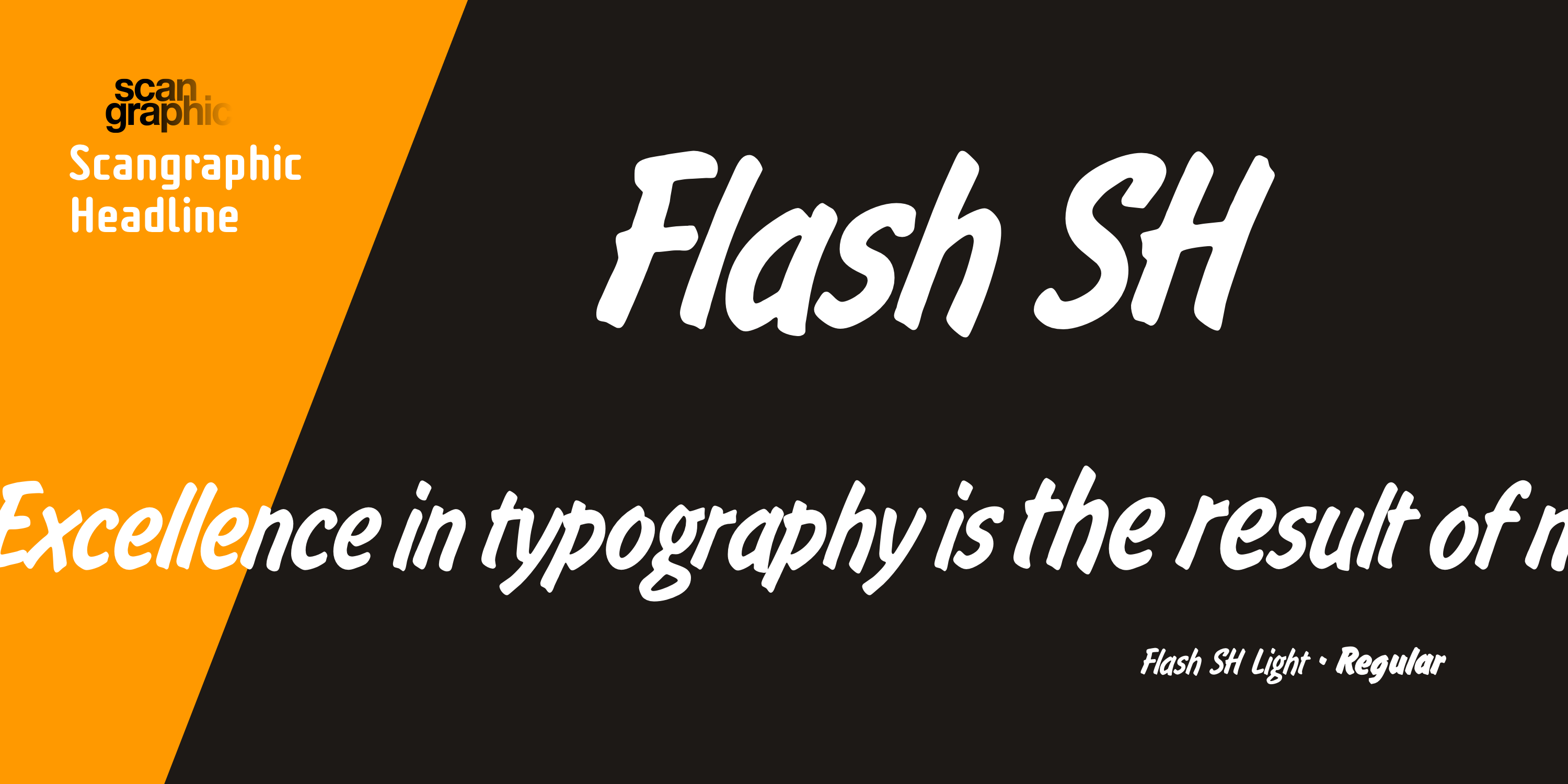
Flash SH Font is perfect for superhero comic book titles, high-energy sports graphics, dynamic action movie posters, electric vehicle branding, lightning-fast delivery services, extreme sports promotions, energy drink packaging, and electrifying entertainment campaigns.
What makes Flash SH Font exciting is its explosive energy that instantly captures lightning-fast speed and electrifying power through dynamically charged typography that crackles with unstoppable momentum and superhuman velocity. The energetically crafted letterforms showcase sharp angular construction with electric characteristics that evoke memories of lightning strikes, superhero adventures, and the thrilling rush of pure adrenaline-fueled action. This extraordinary typeface embodies speed, power, and electrifying excitement, making it the perfect choice for brands and projects that need to communicate instant impact, superhuman performance, and the kind of high-voltage energy that stops traffic and demands immediate attention.
The Flash SH Font family includes multiple weights from Regular to Ultra Bold, with condensed variants for maximum electric impact. The comprehensive character set features uppercase and lowercase letters, lightning-fast numerals, electric symbols, and high-energy punctuation marks that enhance the electrifying aesthetic across all action-oriented and dynamic design applications.
Action brands and entertainment designers seeking Flash SH Font Free Download will discover unlimited potential for creating electrifying, attention-grabbing communications. This remarkable typeface transforms standard promotional text into compelling visual lightning bolts that immediately communicate speed, excitement, and superhuman capability. Whether you're designing superhero entertainment materials, creating extreme sports branding, developing high-performance automotive graphics, or crafting energy-focused marketing campaigns, this font delivers exceptional results that charge audiences with excitement and project the kind of electric energy that makes brands unforgettable and irresistible to action-seeking consumers.
The dynamically engineered letter spacing and electric construction make Flash SH Font highly effective across both large-scale action signage applications and smaller high-energy promotional materials. Its lightning character ensures maximum visibility and impact in fast-paced environments while maintaining excellent readability at superhuman speeds. From comic book covers to energy drink advertisements, this font consistently delivers championship-level performance that strikes like lightning and never slows down.